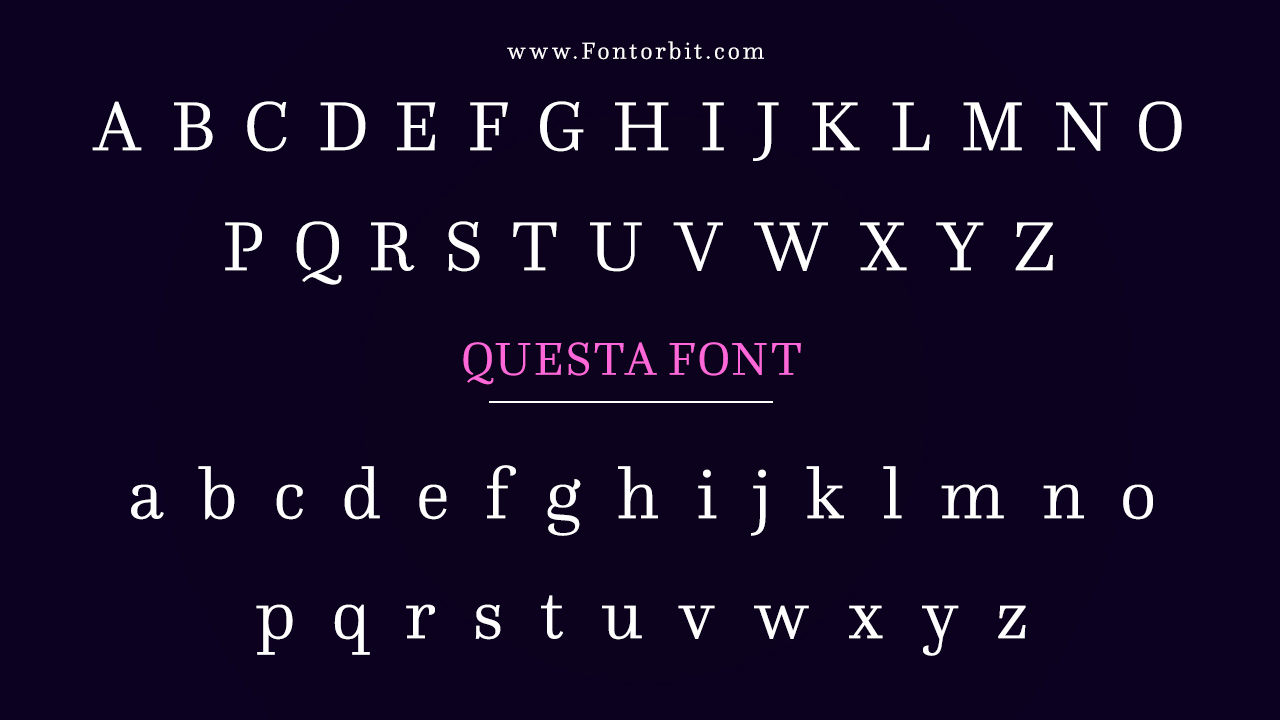
Jos Buivenga and Martin Majoor designed the serif font Questa, which The Questa Project published. Its professional, elegant look makes it suitable for both print and digital media. The font family includes various weights, making it versatile for different design needs.
The Questa family is known for its extensive range, catering to both traditional and modern typography needs. This font has great flexibility with its variety of styles.
Notable Uses Of Questa
The Questa font is popularly used in editorial design, branding, book covers, and high-end marketing campaigns. Its legibility and formal elegance make it a go-to for luxury branding and sophisticated publications.
This font excels in formal and professional design applications, particularly for print media such as magazines, books, and brochures. Its modern yet classic style also works well in branding, giving a polished look to logos, business cards, and corporate identities.
- GIFs
- Banners
- Postcards
- Flyers
- Vehicle wraps
- Trailers
- Advertisements
- Office branding
- Tutorial videos
- Brochures (print and digital)
- Newsletters
Questa is a balanced, professional serif font with an eye for tradition and modernity. Its flexibility and attention to detail make it a perfect choice for designers looking for a refined, classic typeface with modern versatility.
1.Is Questa Suitable For Web Use?
Yes, Questa works well for both print and web applications.
2.What Are The Main Styles Included In The Questa Font Family?
The main styles include Questa Regular, Questa Italic, Questa Bold, Questa Sans, Questa Display, and Questa Black.
3.Can Questa Be Used For Logos?
Yes, its refined nature makes it a great option for luxury or professional logos.
4.What Is The Best Alternative To Questa?
Playfair Display is one of the closest free alternatives to Questa.
5.What Are The Best Design Uses For Questa?
Questa is ideal for editorial design, branding, and formal documents.